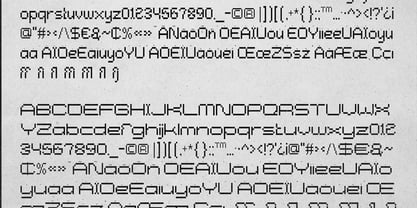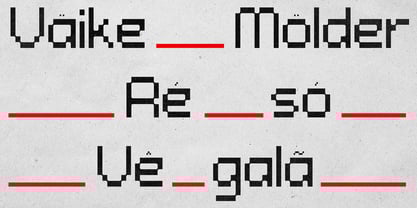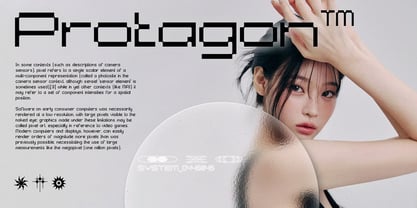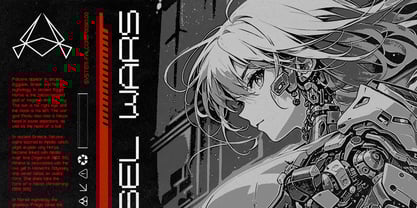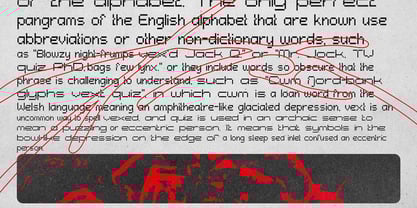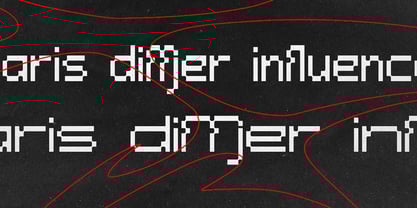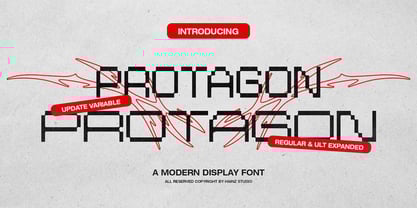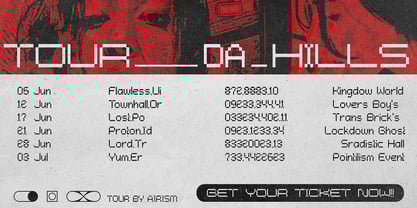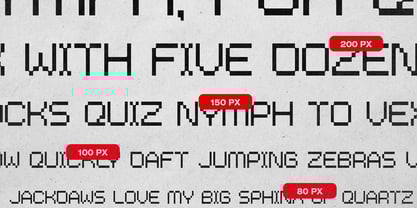
Protagon
by Henta Zkhr
The Protagon Font Family was designed by Henta Zkhr and published by Henta Zkhr. Protagon contains 2 styles and family package options.
Introduce Protagon - Modern Pixel Display Font
I made a modern pixel font inspired by poster design. Some posters on my Pinterest page triggered me to make this font. Retro classic pixel ​​​​​​inspired to make this font with a modern style.
This font supports Uppercase, Lowercase, Numbering, and some Multilingual.